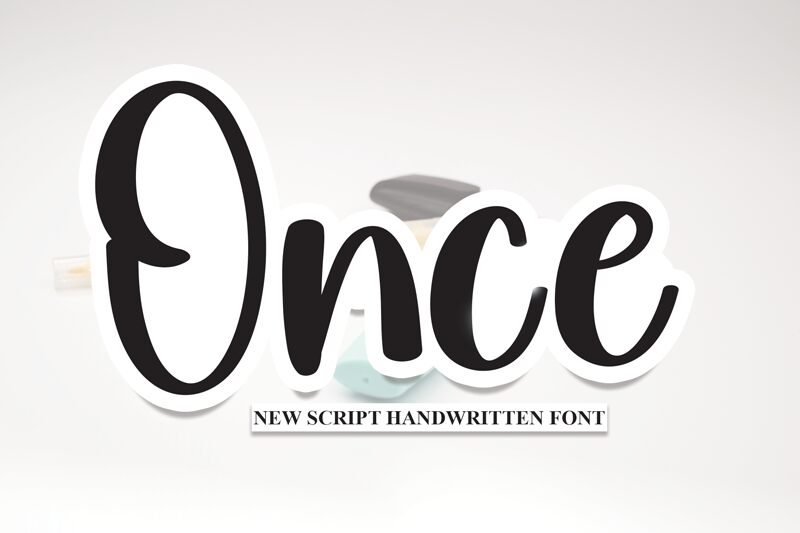
Once
Once, a captivating handwritten font by Scratchones, adds a touch of elegance and uniqueness to any project.
Its graceful curves and gentle strokes create a sense of warmth and personality, making it perfect for wedding invitations, love letters, and romantic branding. Alternatively, Once's charming appeal also lends itself beautifully to children's book illustrations or playful designs for birthday cards.
Whether you're aiming for sophistication or childlike wonder, Once is the ideal choice to bring your creative visions to life.
The latest style letters are perfect for wall displays, wedding invitations, social media post logos, advertisements, product packaging, product designs, labels, photography, watermarks, invitations, stationery, and any project that requires taste handwriting.